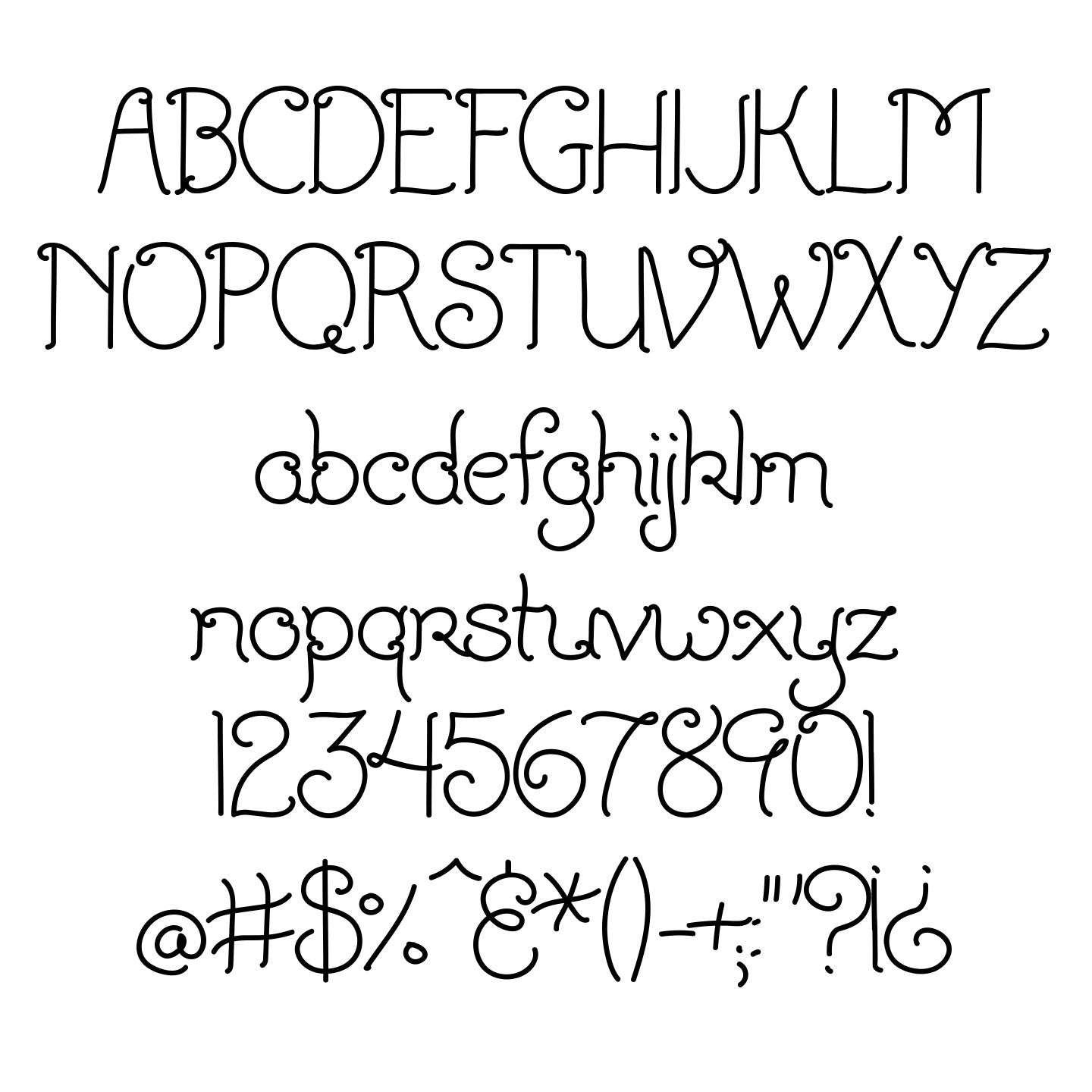
Fairelyn
It’s hard to find a whimsical font that a) incorporates curls but remains readable in large blocks, b) is properly kerned, and c) isn’t too precious to actually use. Fairelyn aims to achieve a balance of readability and fantasy ornamentation—whether you’re typesetting an epic poem or looking for a convincing neat but frilly handwriting display face.
Designed by April Carter Grant